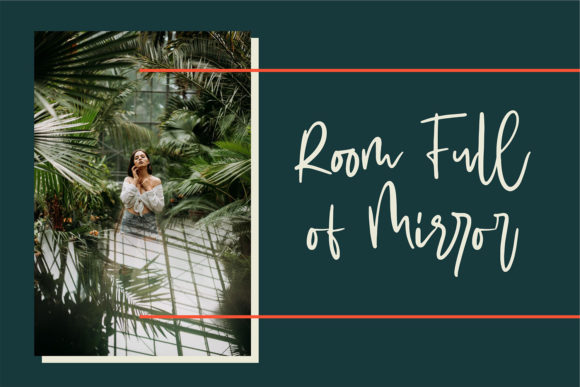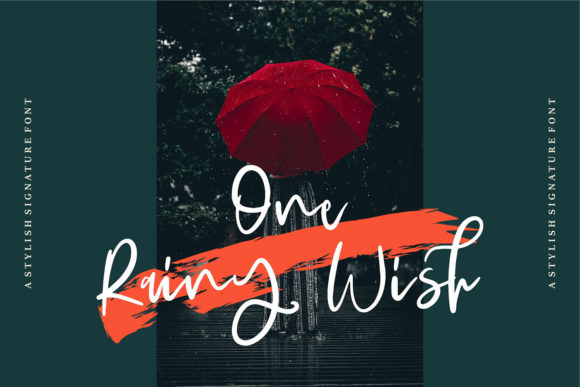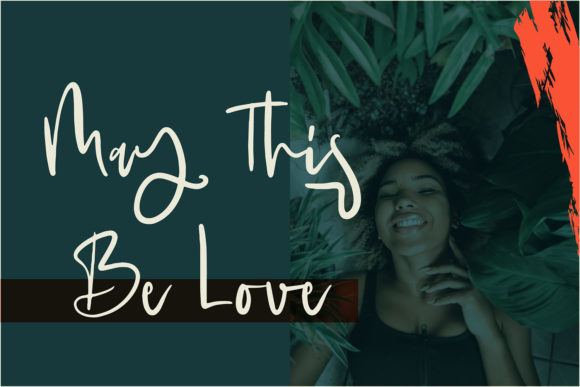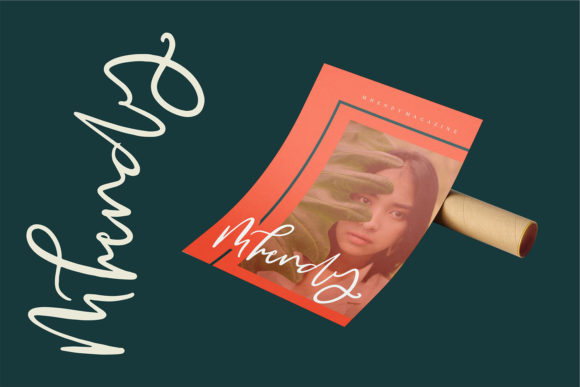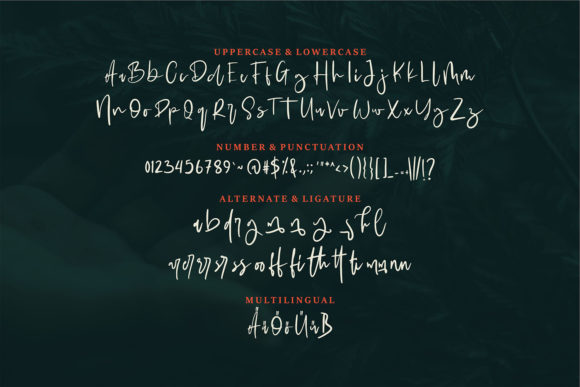
Introduction to Nooleigh Font
Nooleigh is an unique handwritten font.
Whether youโre using it for crafting, digital designing, presentations, or greeting card making, itโs perfect Fall in love with its incredibly versatile style and use it to create spectacular designs.
Key Features of Nooleigh Font
Why Choose Nooleigh Font?
Nooleigh Font offers exceptional quality and versatility, making it a valuable addition to your design toolkit. Whether you’re creating for personal projects or commercial use, Nooleigh Font delivers professional results.